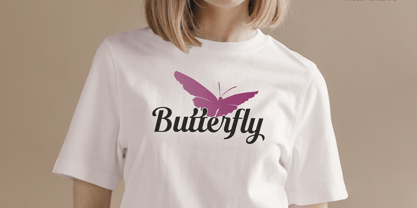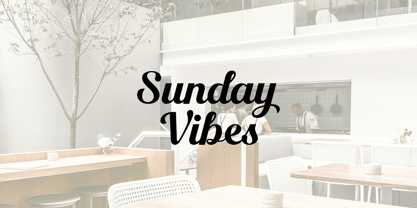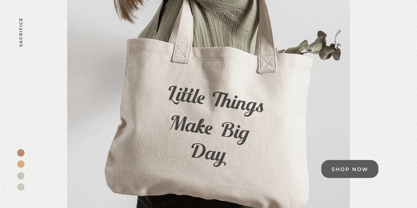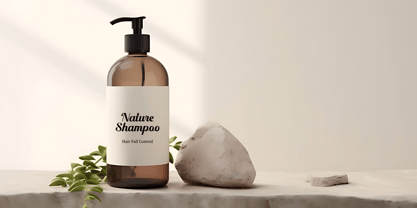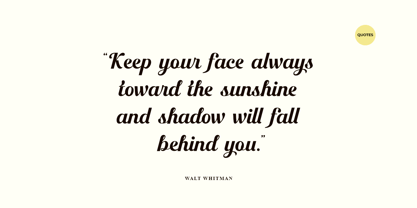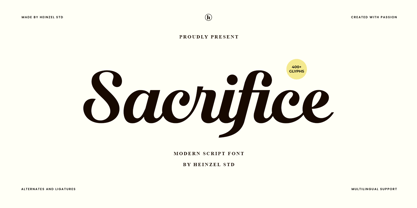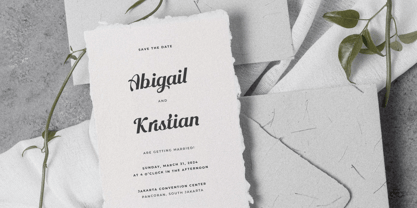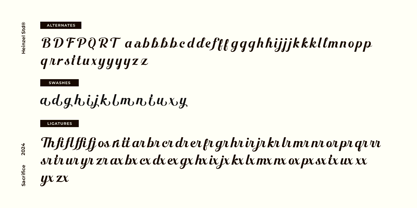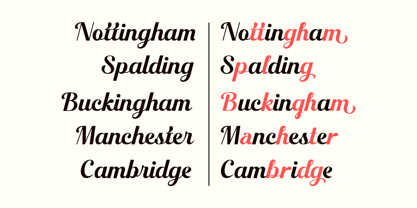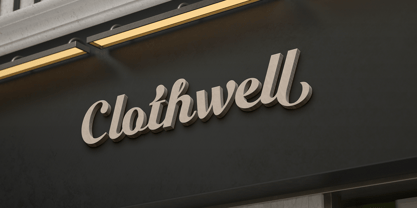
Sacrifice
par Heinzel Std
La famille de polices Sacrifice a été conçue par Nofi Sofyan Hadi et publiée par Heinzel Std. Sacrifice contient 1 styles.
Sacrifice is a script typeface with a vintage look. It has many alternate characters, swashes, ligatures, and tails. These alternates make Sacrifice very versatile. You can design beautiful, elegant, and diverse typographic elements with it. It’s well suited for logos, lettering artwork, t-shirt designs, editorial illustrations, and more.
Concepteurs: Nofi Sofyan Hadi
Éditeur: Heinzel Std
Fonderie: Heinzel Std
Maître d'ouvrage: Heinzel Std